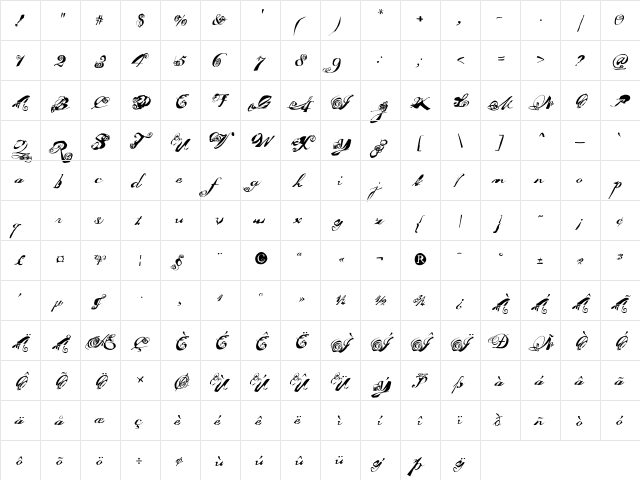
Masterpiece Allegro
Design Context for Masterpiece Typeface
Masterpiece is a composed and adaptable typeface that performs quietly and consistently across a wide range of design contexts.